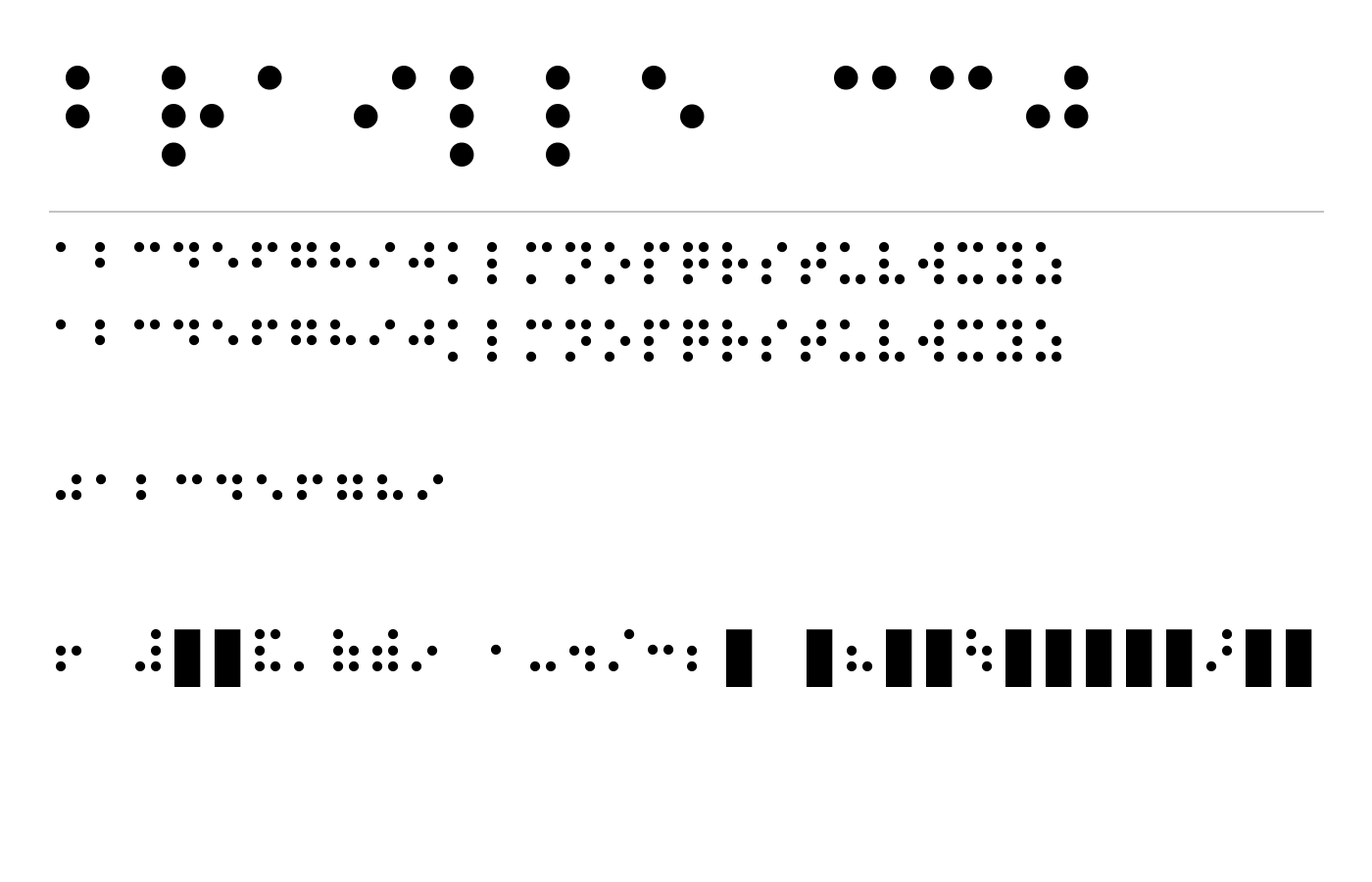
Braille CC0 Font is a unique, tactile-inspired typeface designed to mimic the traditional Braille system with distinct dotted patterns representing characters. Its clean, minimalist layout features consistent dot spacing and proportions, giving it a modern, geometric feel that emphasizes accessibility and inclusivity. This font is ideal for educational materials, awareness campaigns, and creative projects that aim to blend visual design with braille literacy concepts.
Braille CC0 Font
About Braille CC0 Font